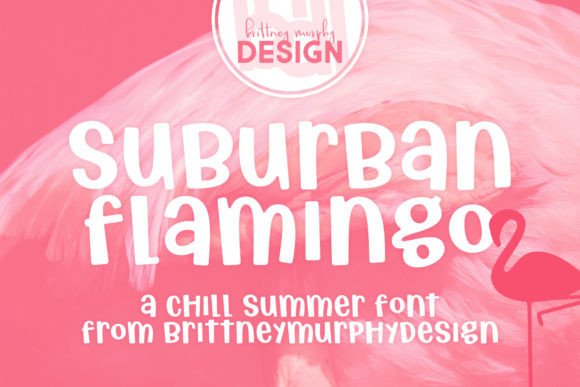
Looking for a font that's both quirky and attention-grabbing? Look no further than Suburban Flamingo Font! This unique display font was created by brittneymurphydesign and is perfect for anyone looking to add a touch of fun and creativity to their designs.
One of the standout features of Suburban Flamingo Font is its mixed-case lettering, which adds a playful and unconventional touch to any text. With soft corners and mostly mono-height lettering, this font is perfect for tight lettering without creating awkward white space between lines.
Whether you're designing for kids, creating apparel, or advertising an event, Suburban Flamingo Font is sure to make your text pop. The attention-getting letter shapes are perfect for catching the eye of potential customers and adding a touch of fun to any design.